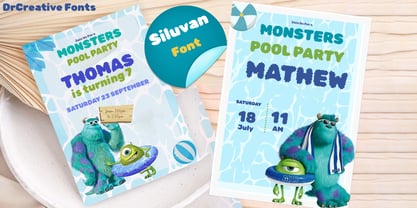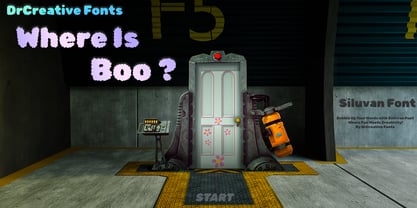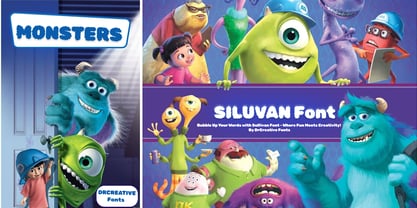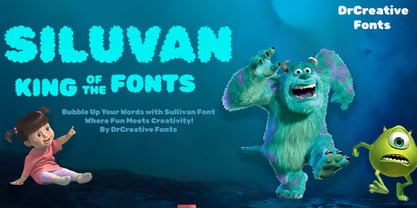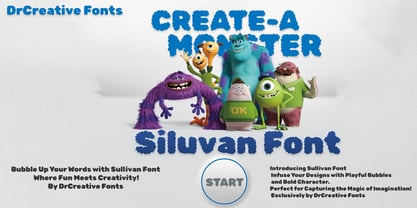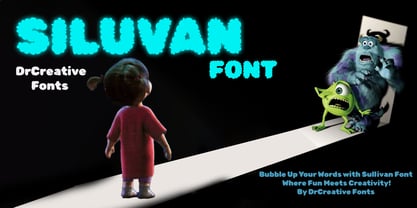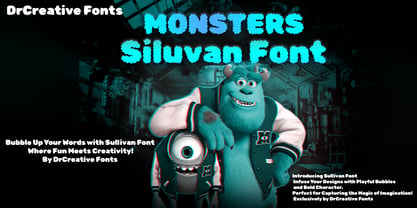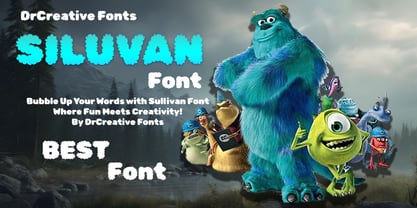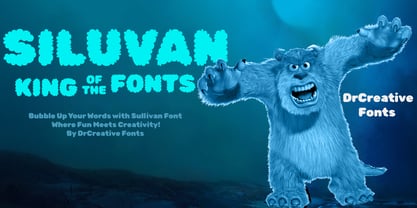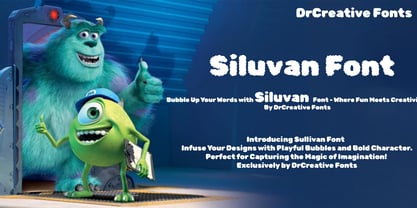
Siluvan
by DrCreative
The Siluvan Font Family was designed by Mohamed Tharwat Omara and published by DrCreative. Siluvan contains 2 styles and family package options. More about this family
Siluvan Font By DrCreative Fonts Siluvan is a joyful bubble display typeface designed to bring energy, warmth, and imagination to every project. Created by DrCreative Fonts, Siluvan features soft rounded forms, playful curves, and bold personality that instantly capture attention while maintaining excellent readability. Inspired by fun, creativity, and expressive design, Siluvan adds a lively charm to headlines, logos, branding, packaging, children’s content, posters, and social media graphics. Its bubbly structure and friendly character make it perfect for projects that need a touch of happiness and visual impact. Whether you're designing for kids’ brands, entertainment projects, creative campaigns, or bold promotional materials, Siluvan helps your words pop with confidence and personality. Make your typography smile. Make it Siluvan. — DrCreative Fonts
Designers: Mohamed Tharwat Omara
Foundry: DrCreative